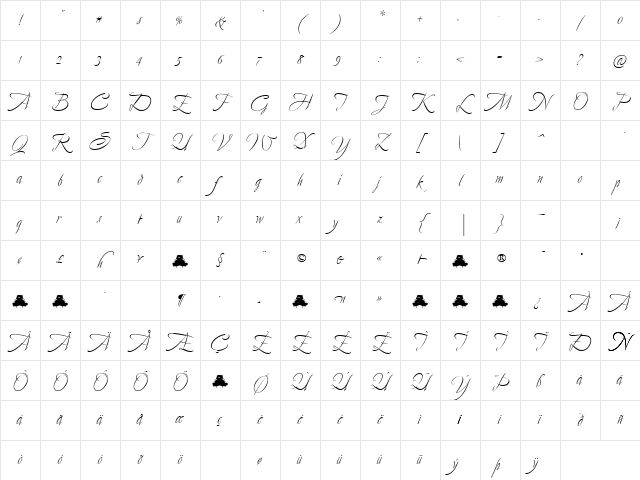
Avalon Regular Free Font
Avalon Regular
Design Context for Avalon
Avalon is a composed and adaptable typeface that performs quietly and consistently across a wide range of design contexts.